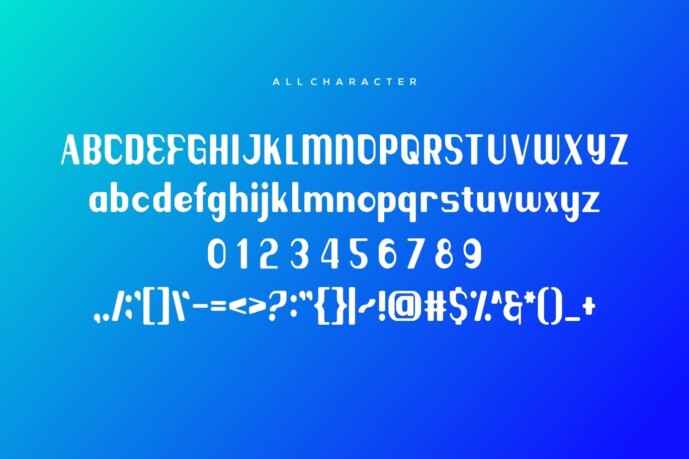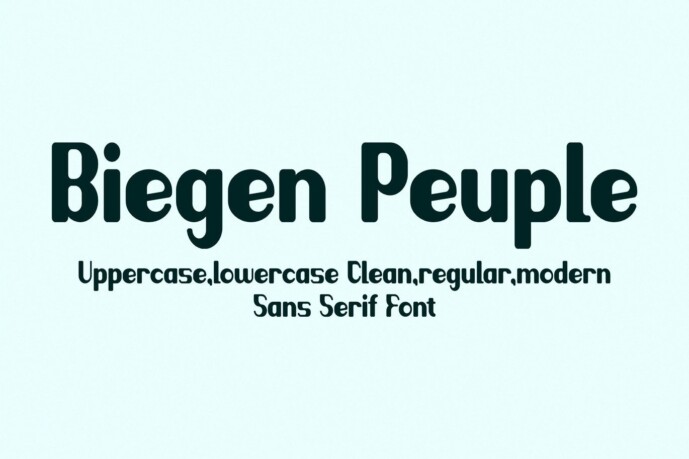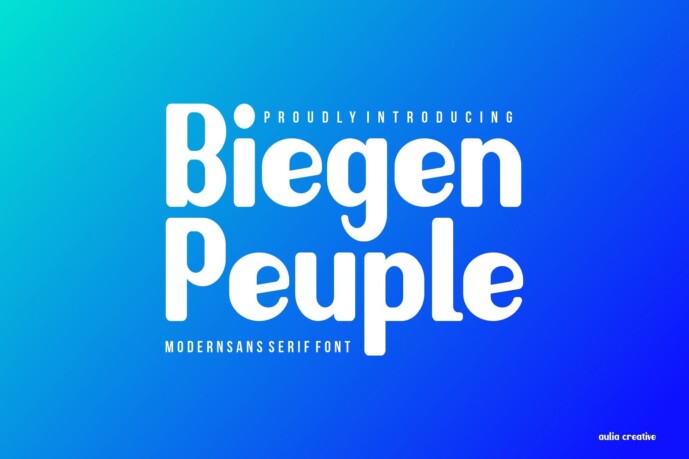
Biegen Peuple Font
Biegen Peuple Font – Display Sans & Logo Font is an elegant and authentic display font. Suitable for any design needs : logo, branding, modern advertising design, logos, poster quote, book / cover Title, editorial design, website / blog, card, t-shirts, and any hand-lettered needs.